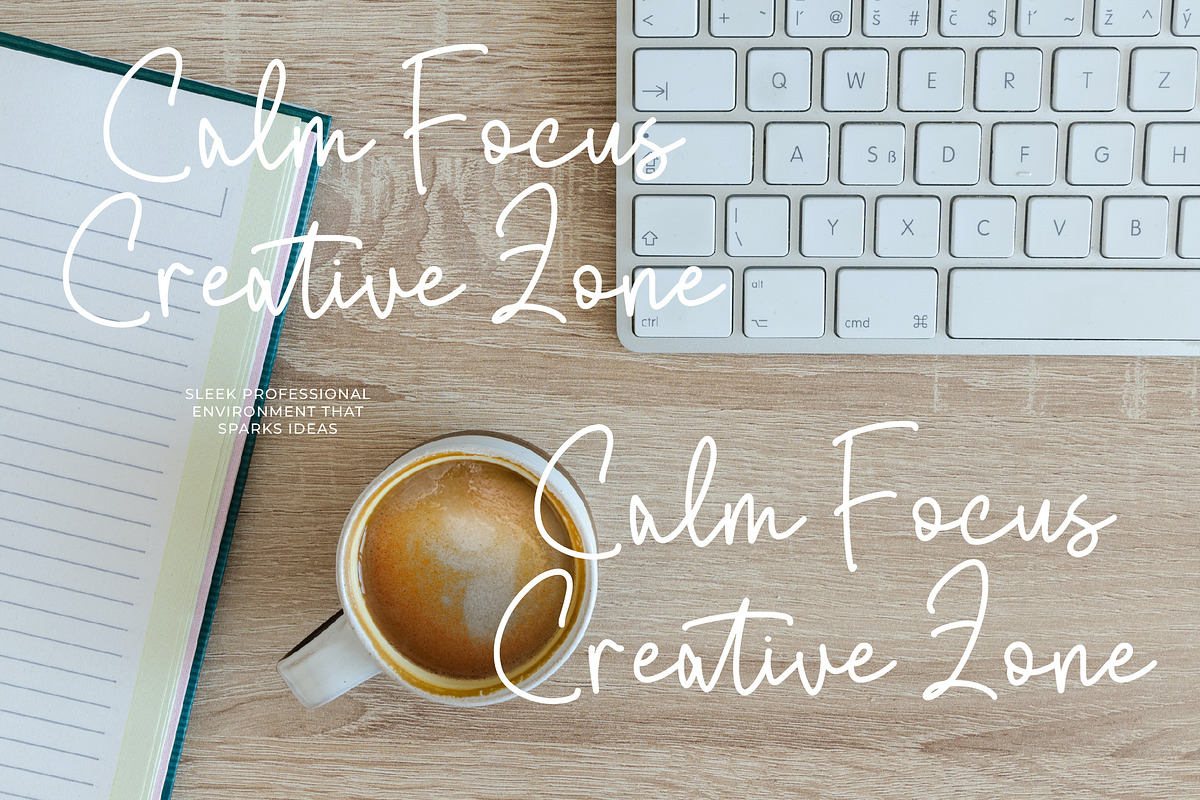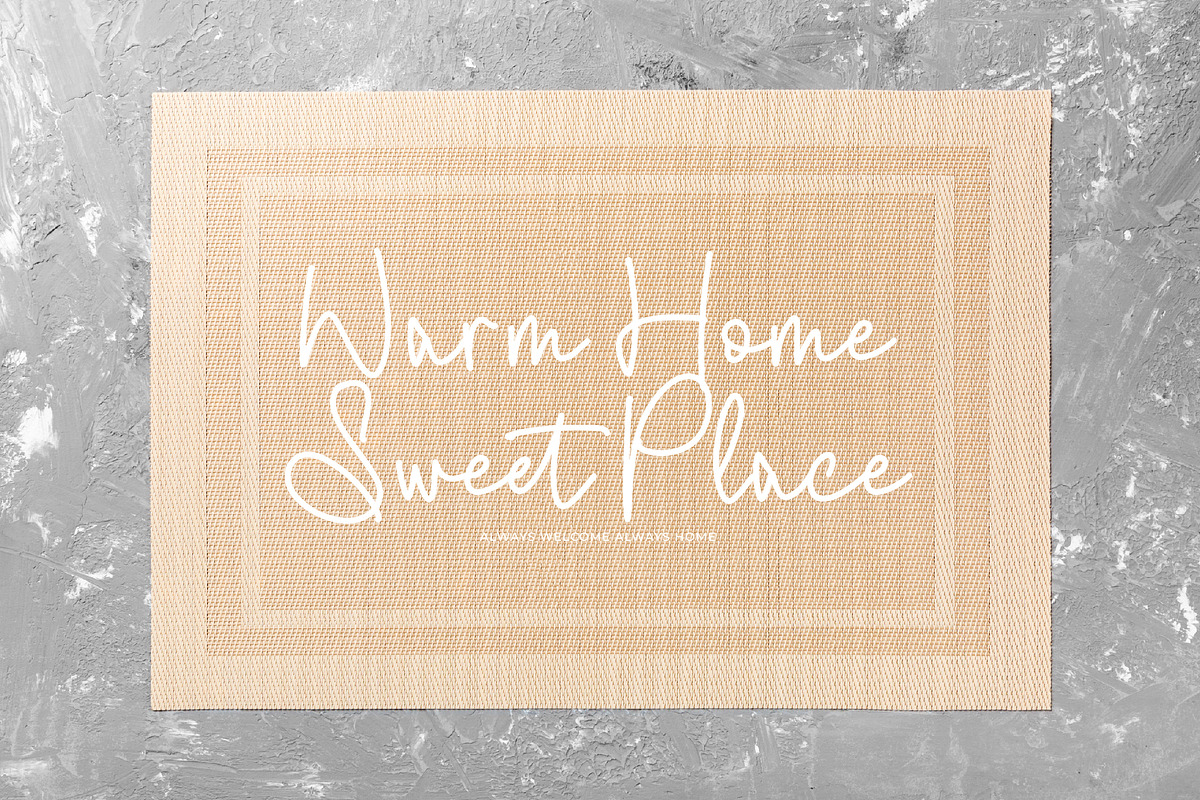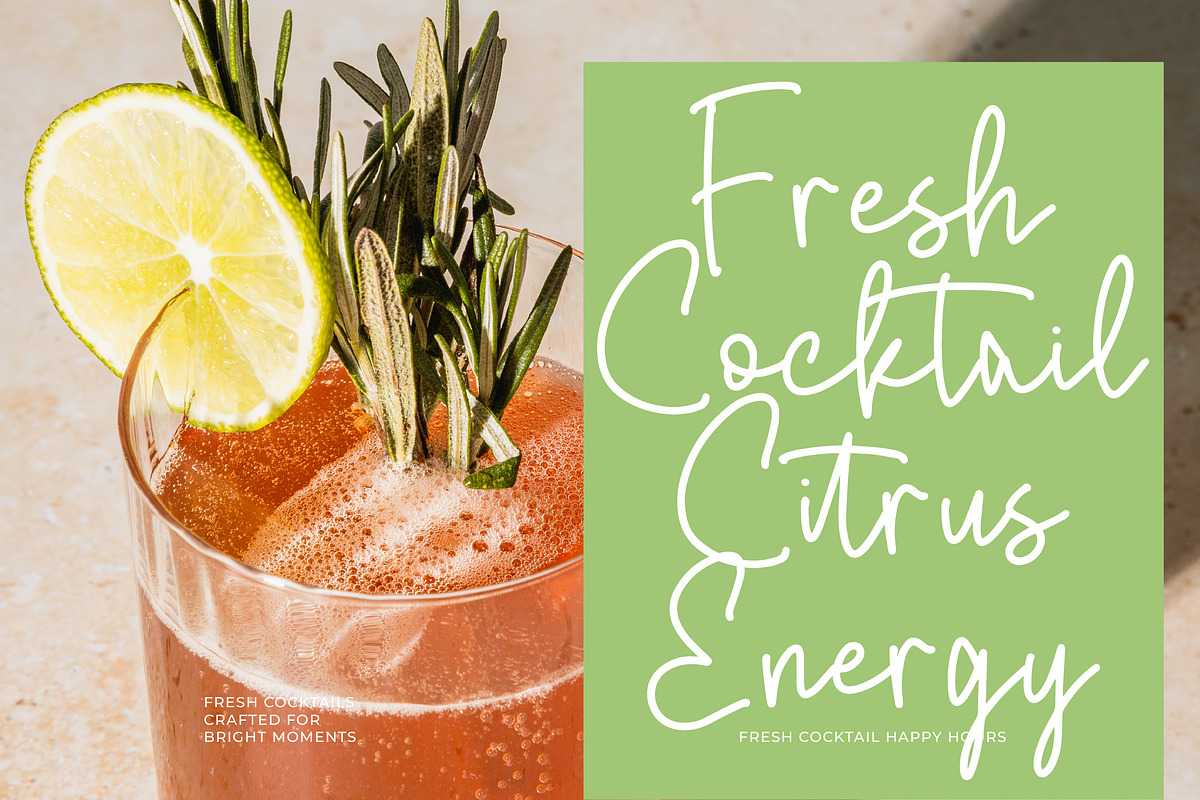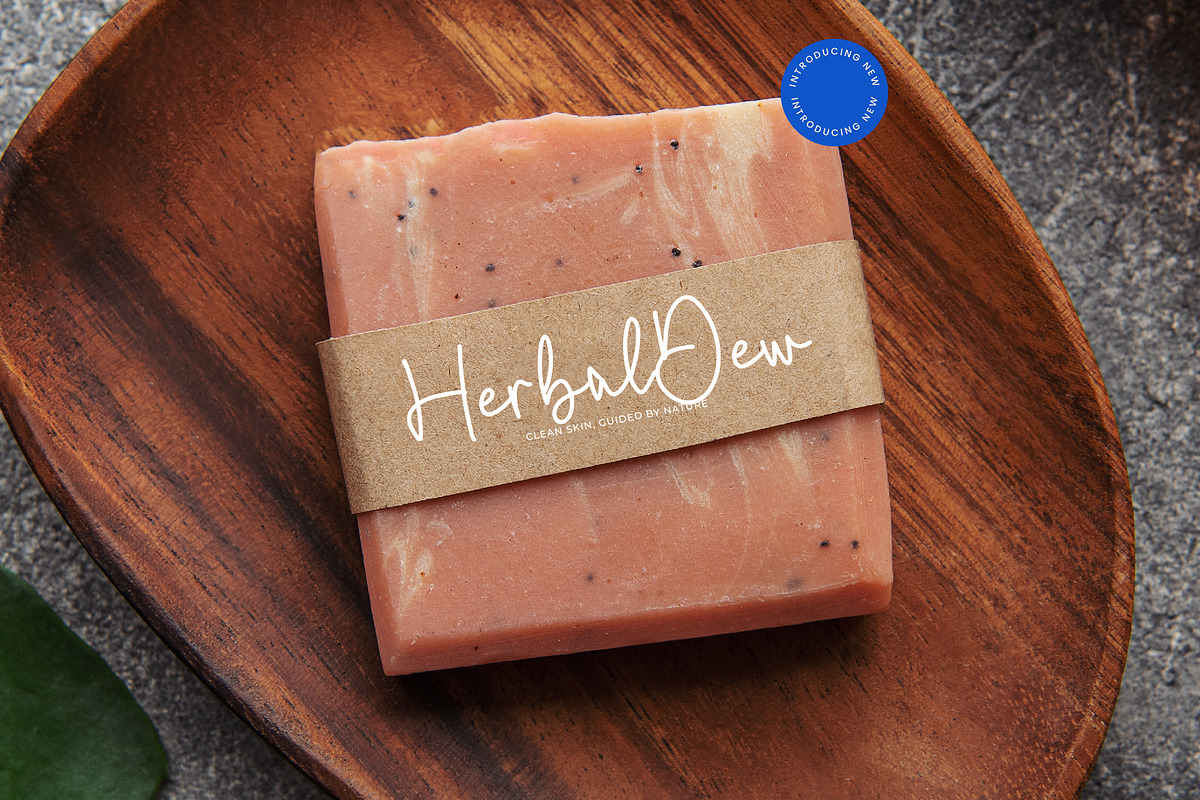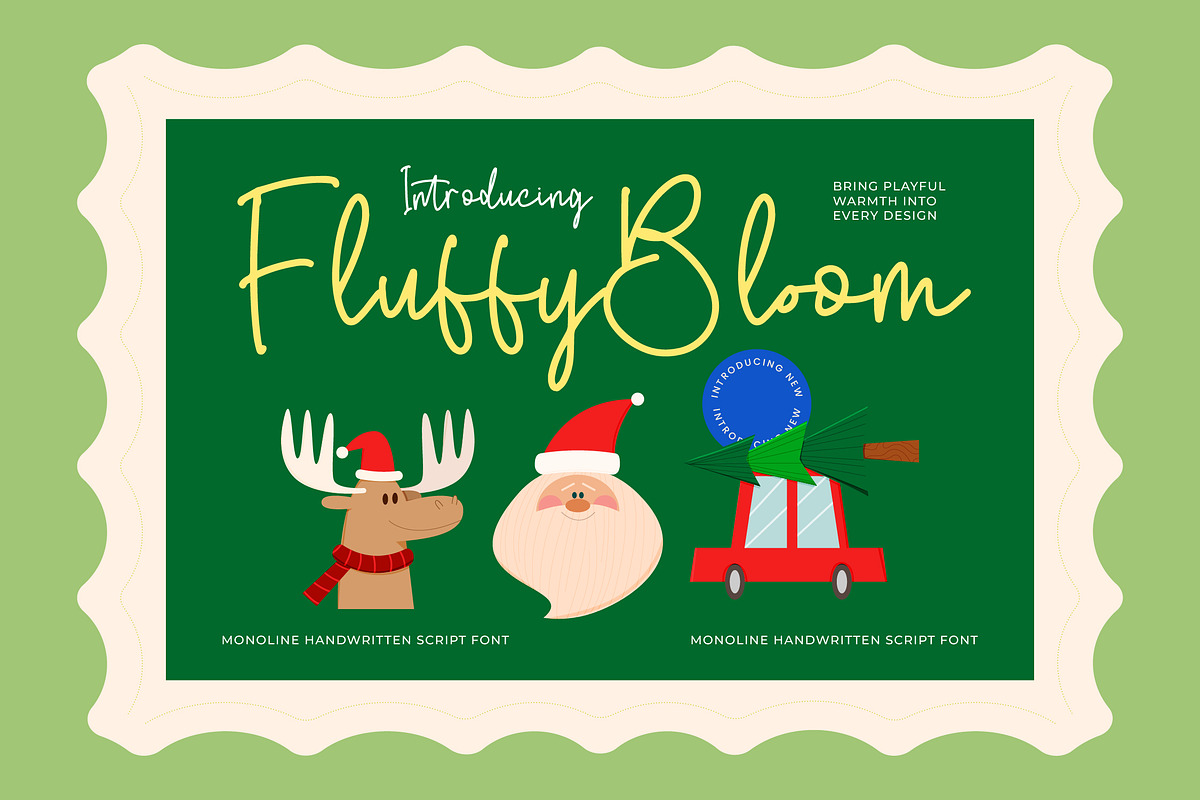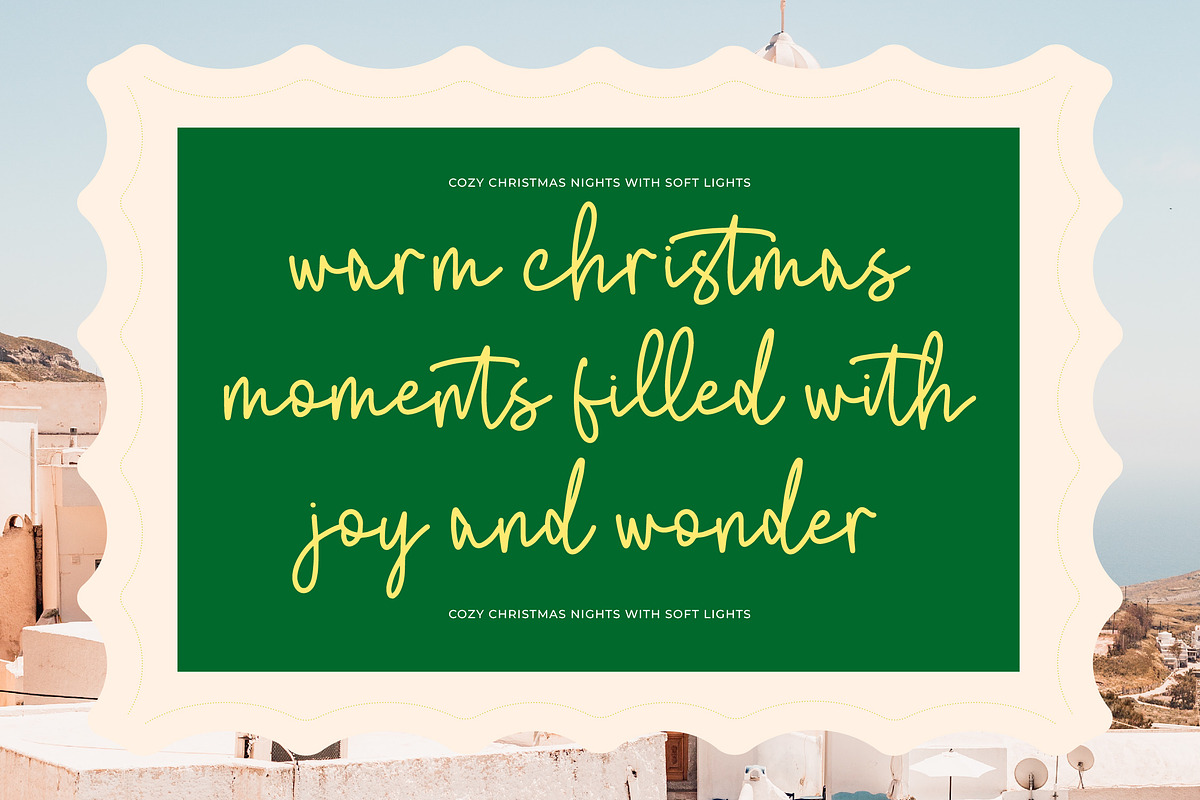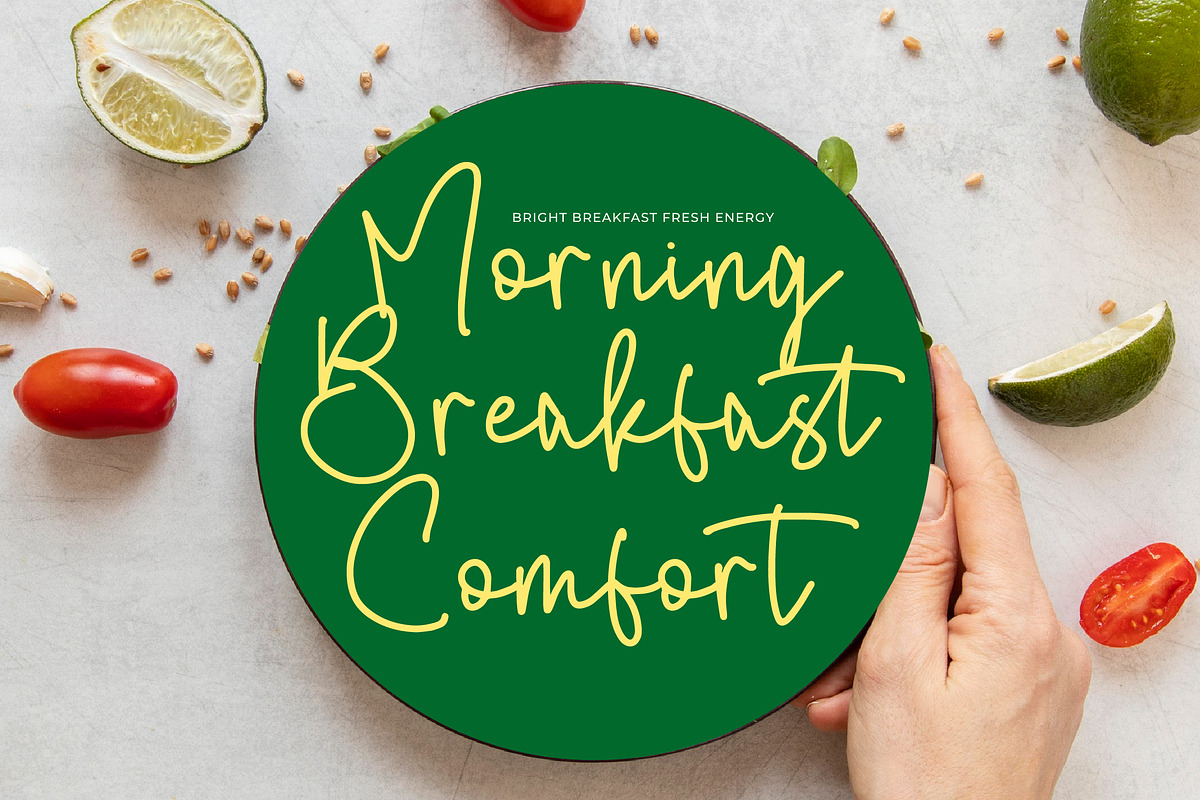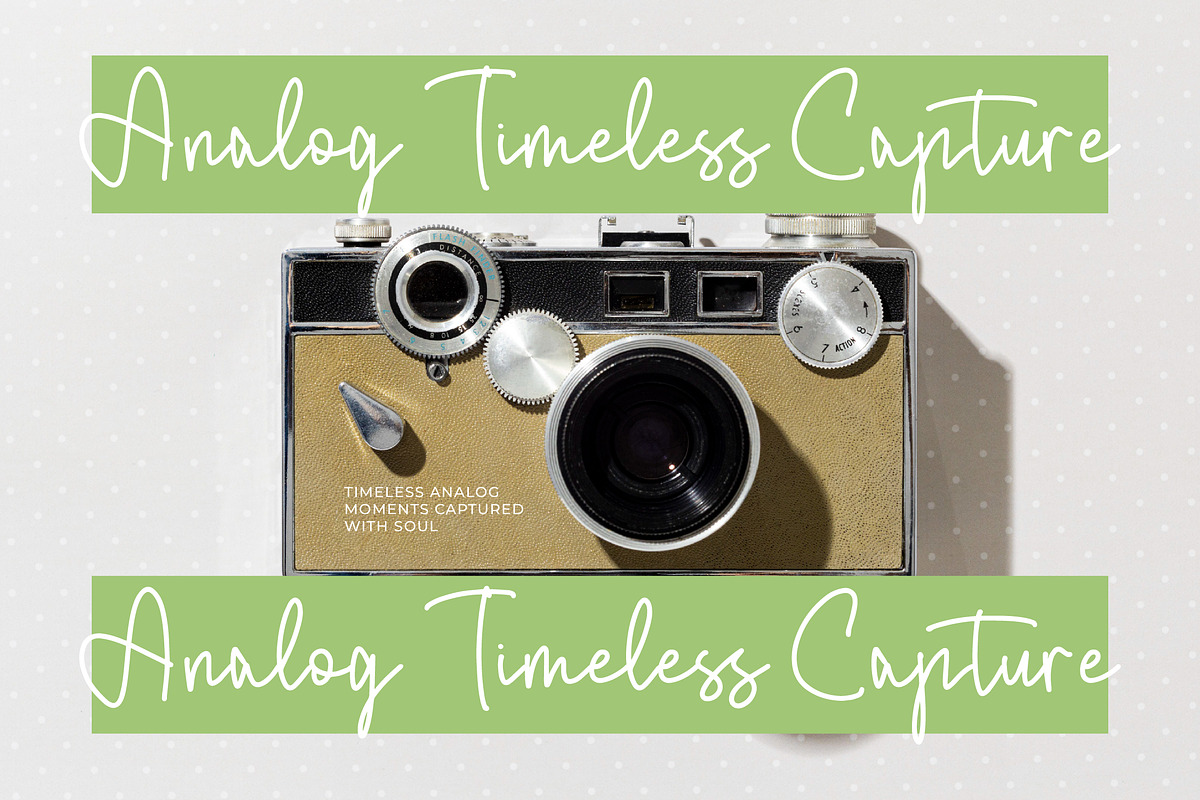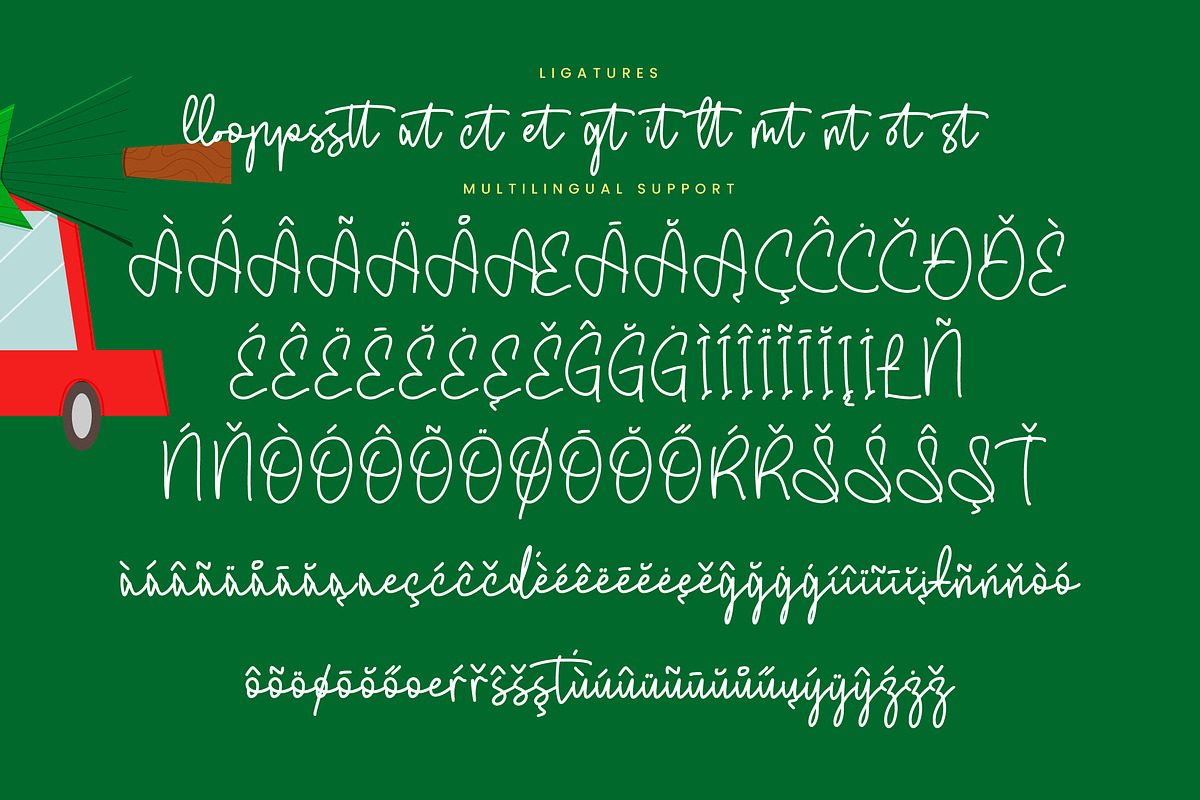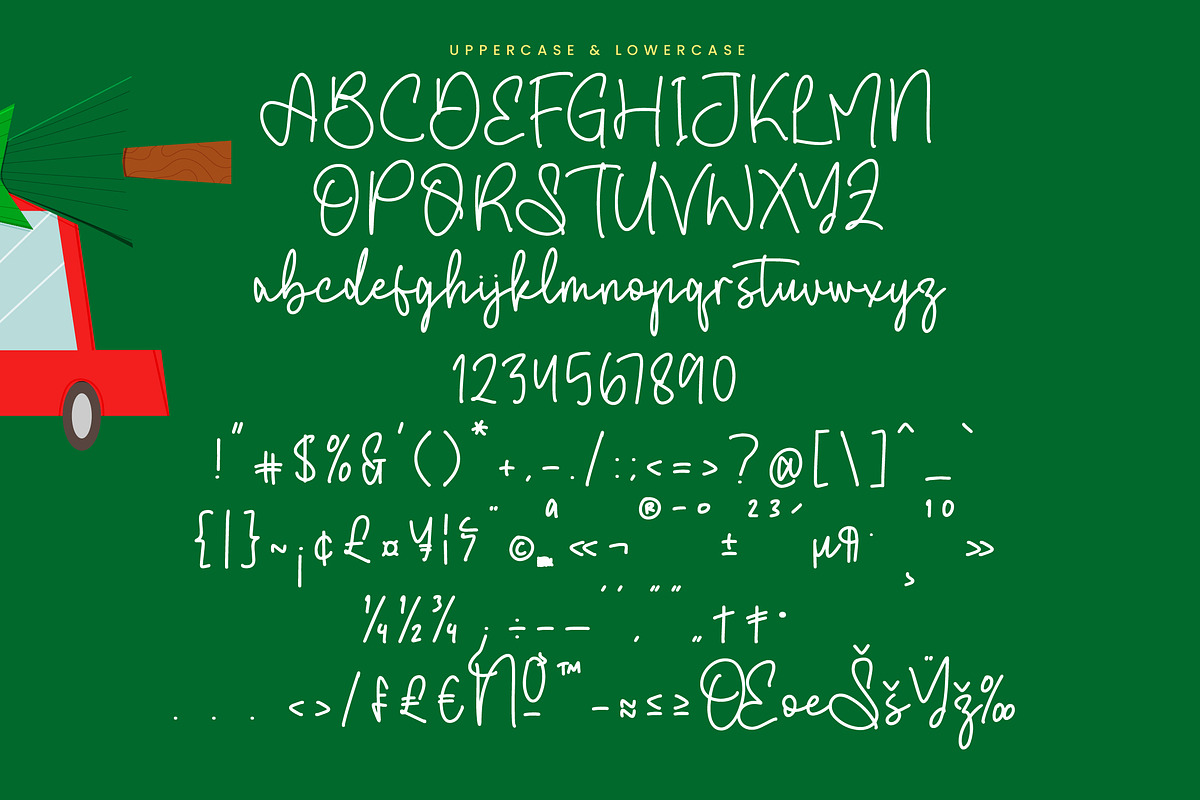
Fluffy Bloom Charming Monoline Han
Fluffy Bloom – Charming Monoline Handwritten
Fluffy Bloom is a charming monoline handwritten font from Integritype Studio, featuring smooth lines and a friendly handwritten character. Its soft and playful style makes it perfect for modern, cute, and elegant design needs.